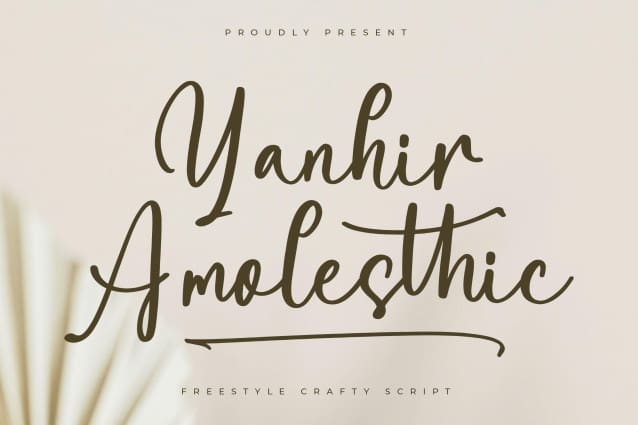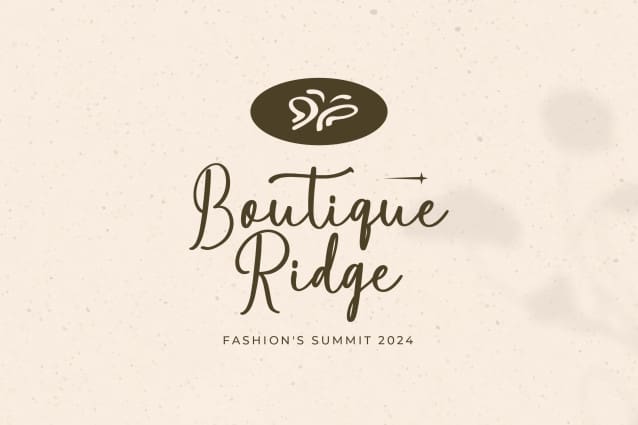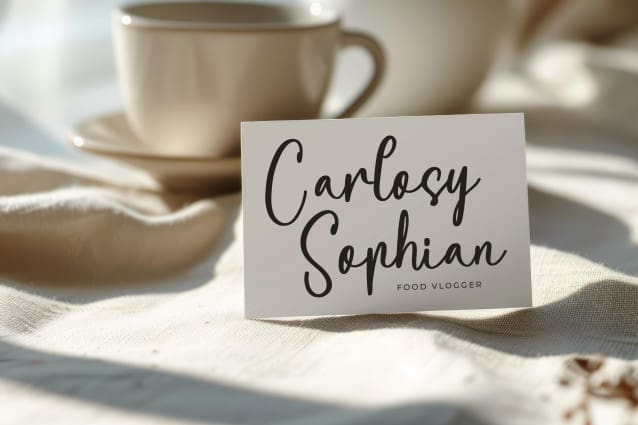
Yanhir Amolesthic Font
Yanhir Amolesthic Font – Freestyle Crafty Script , from Letterena, is a Luxury Script font, suitable for any projects such as: logos, branding projects, homeware designs, product packaging, mugs, quotes, posters, shopping bags, t-shirts, book covers, name card, invitation cards, greeting cards, label, photography, watermark, special events, and all your other luxury and beautiful projects that need a Luxury Script taste.